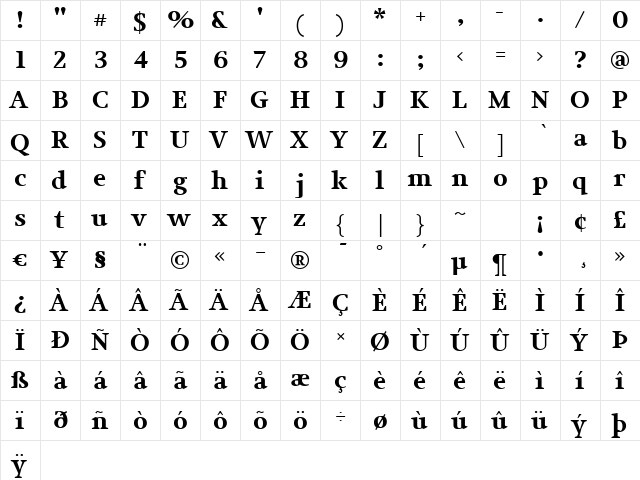
JudeBlackLiningNumbers Regular Font Preview
JudeBlackLiningNumbers Regular
Design Context for JudeBlackLiningNumbers Typeface
JudeBlackLiningNumbers offers clean, dependable letterforms without strong stylistic allegiance, making it a practical choice for designers who need flexibility.